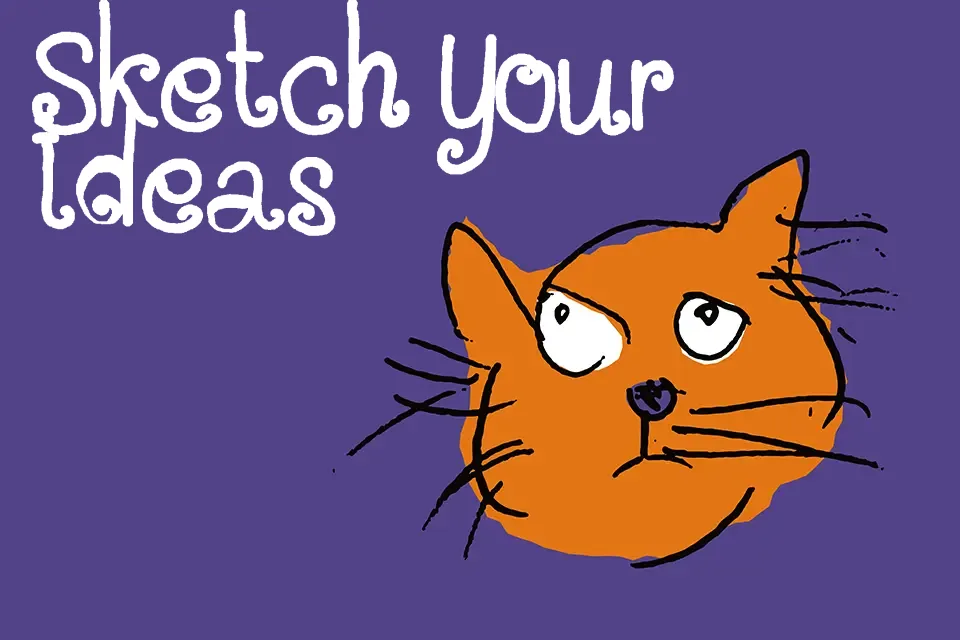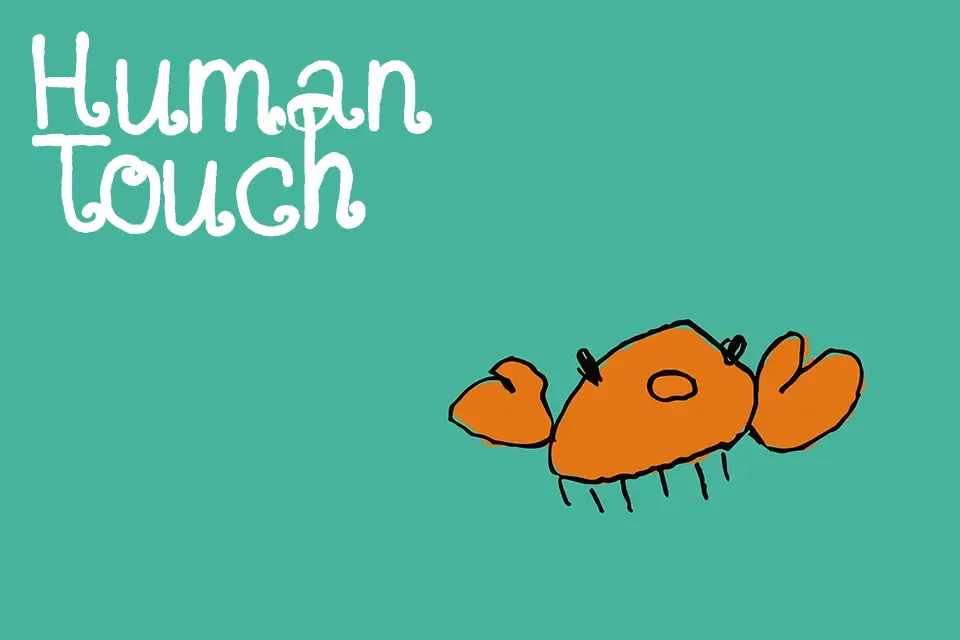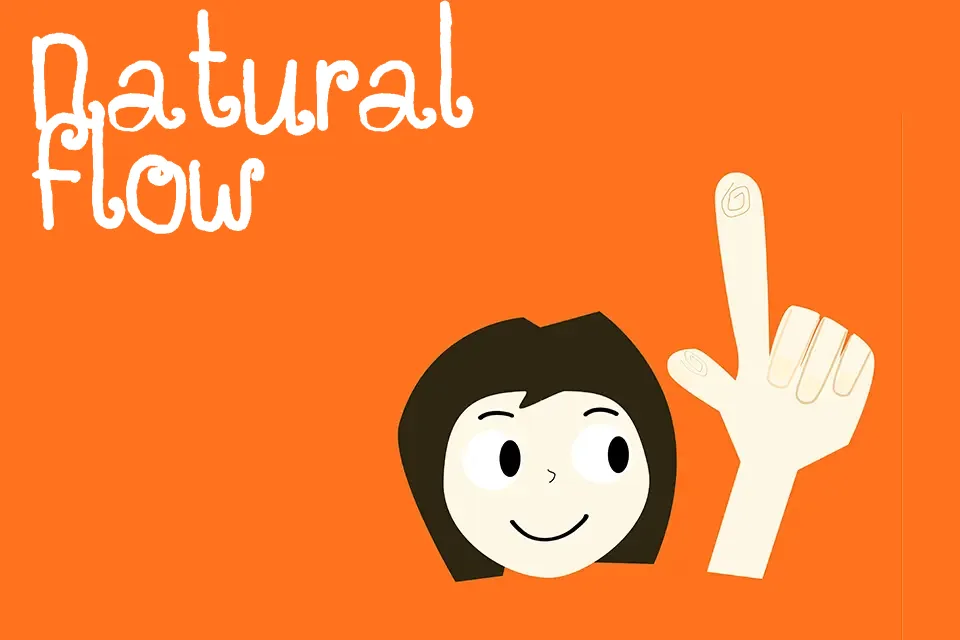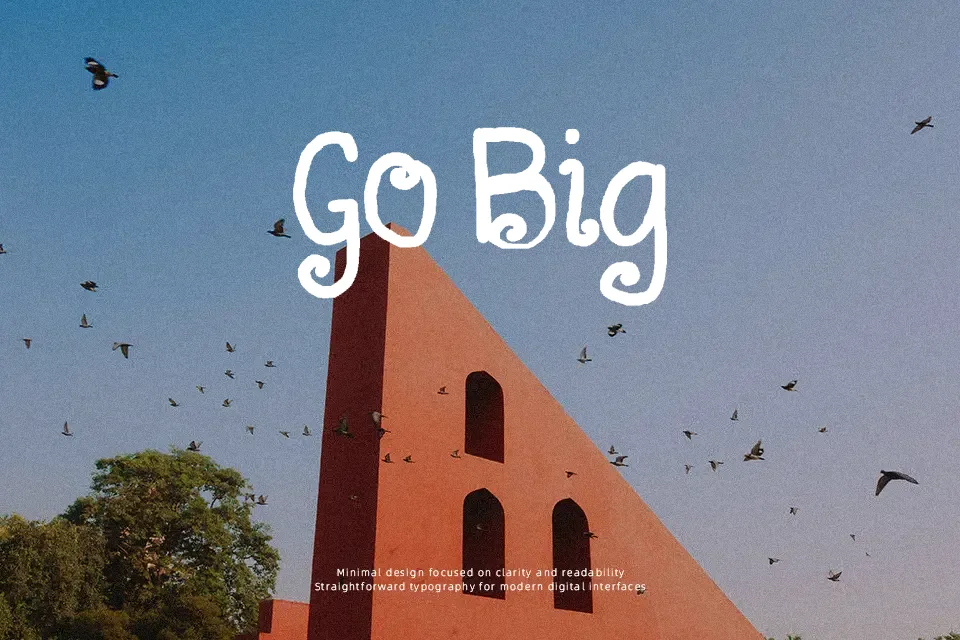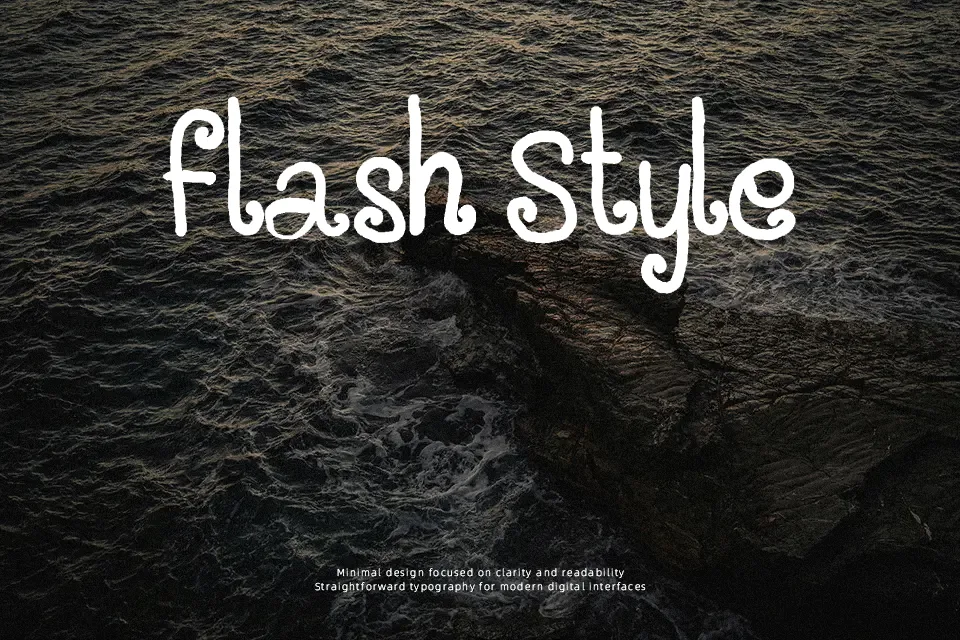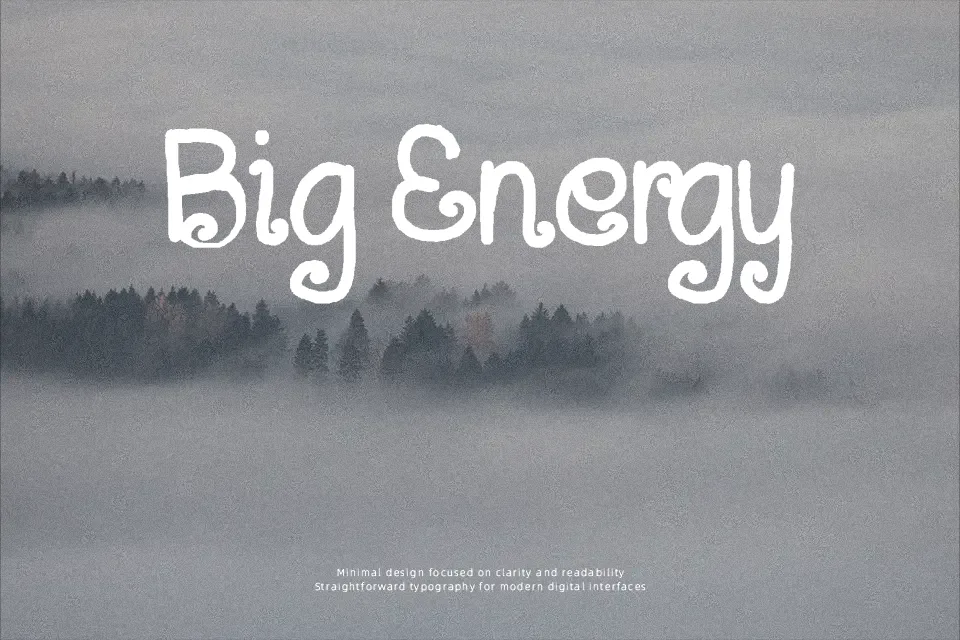
Situjuh Hand Font
Situjuh Hand Font showcases an informal handwritten structure characterized by pronounced spiral curls, rounded loop terminals, and consistent stroke weight throughout each glyph. Wide character proportions and generous letter spacing give the uppercase and lowercase letters a bouncy visual rhythm suitable for greeting cards, festival flyers, and artisan craft labels. While the open counters maintain legibility at large display sizes, the intricate curly embellishments cause visual crowding in dense body copy and small captions. The distinct swirls enhance charm in prominent headers, but dense paragraphs quickly lose clarity when set in continuous text.
Best For: greeting card headlines, children book covers, artisan craft packaging, party invitation titles
Not Ideal For: continuous body text, corporate legal documents, spreadsheet data, mobile interface labels
Perfect for headline, invitation, and kids, with a artistic and decorative style.